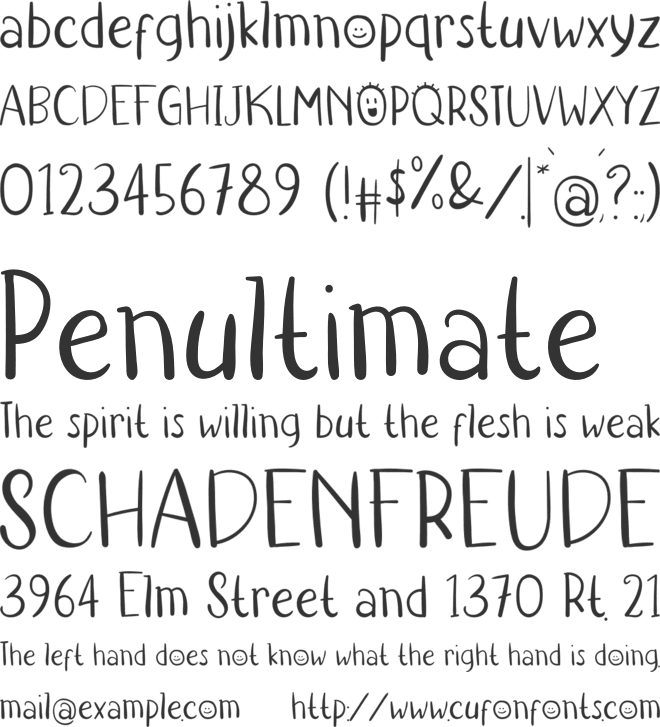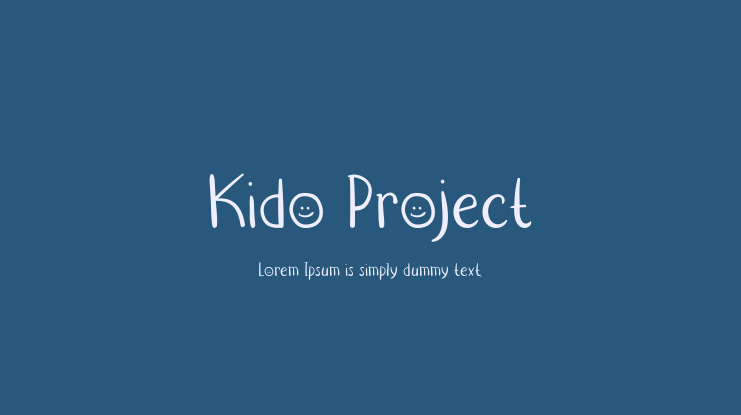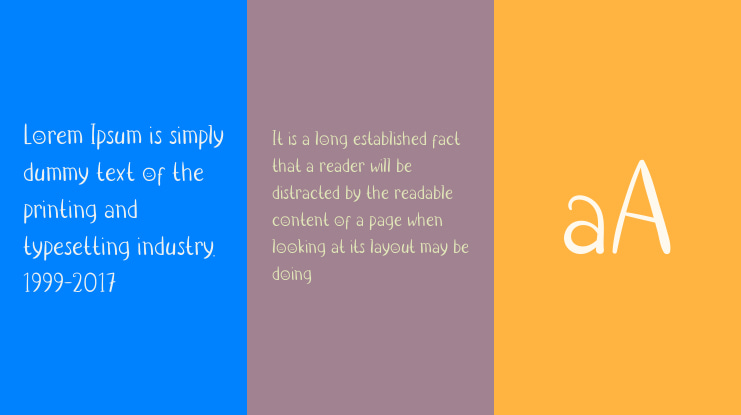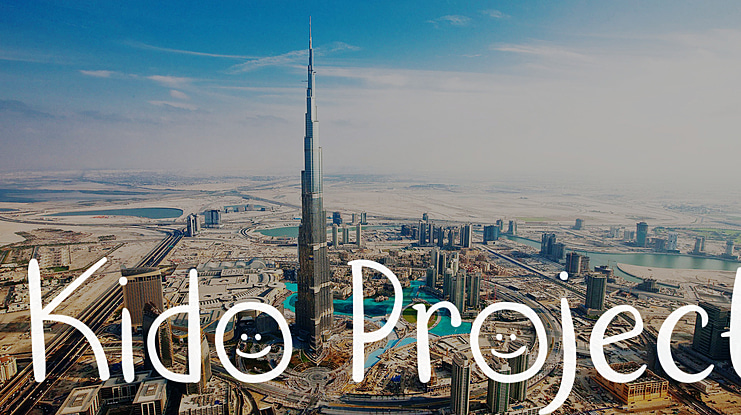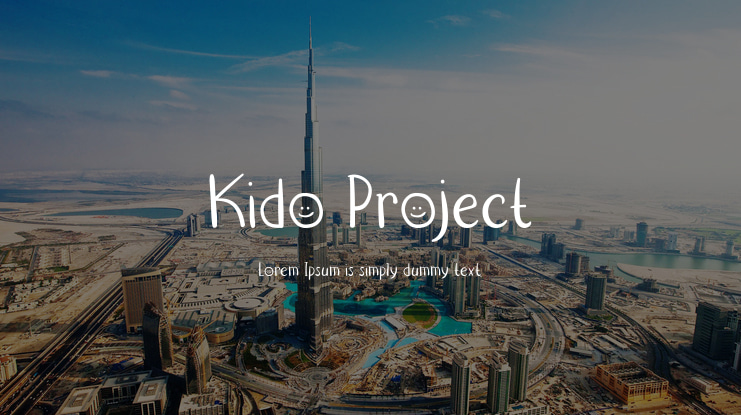
Kido Project Font Family
Introducing our new release, Kido Project Font. This typeset is perfect for brand logo, invitations, greeting card, or even any kind of project. With multilingual feature and style variations, this typeface would further enhance the aestethical aspect of your work.